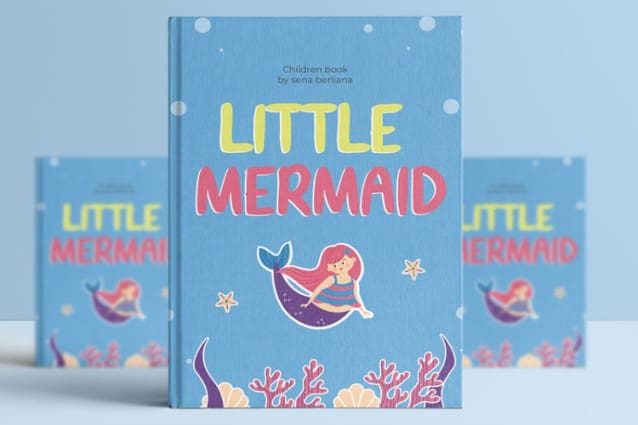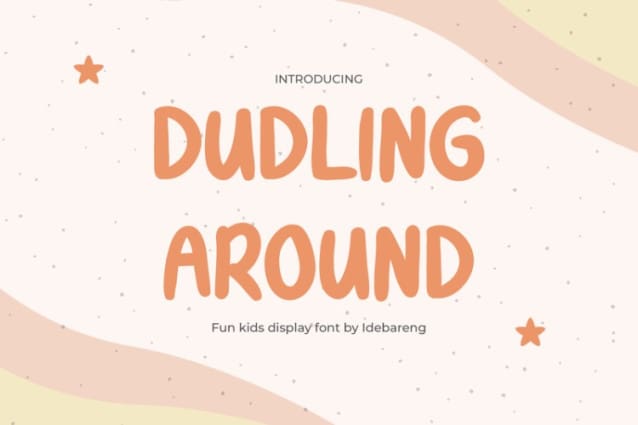
Dudling Around Font
Dudling Around Font is a fun and playful typeface. It captures the carefree nature of handwritten text with quirky characters and unique strokes. This font adds personality to any design, whether for a personal blog, an event invitation, or a branding campaign. Its cheerful style makes it stand out, bringing a light-hearted and warm vibe to your projects.
What makes Handwriting Font Duddling Around unique is its informal, whimsical feel. The strokes are uneven yet smooth, mimicking the natural flow of handwriting. This creates an authentic and organic look that sets it apart from traditional fonts. It’s perfect for projects that need a fun, youthful touch. Despite its playful appearance, the font is easy to read and works well both digitally and in print.
Whether you’re designing for a children’s event or creating a creative brand, Handwriting Font Duddling Around adds an element of fun. Its friendly, relaxed aesthetic helps your design stand out while staying approachable. The font creates a connection with your audience, evoking a sense of warmth and playfulness. It’s perfect for projects that need to make an impact while remaining light-hearted.
This font is Around also strikes a balance between creativity and clarity. It’s casual but not chaotic. The organic curves and letterforms offer personality, while still ensuring the message is clear. This makes it ideal for social media posts, invitations, and even print materials. The font helps elevate any design with a touch of charm and character.